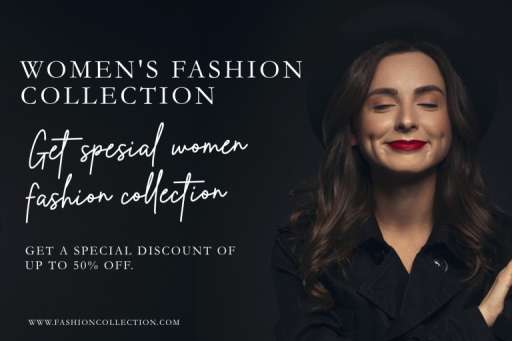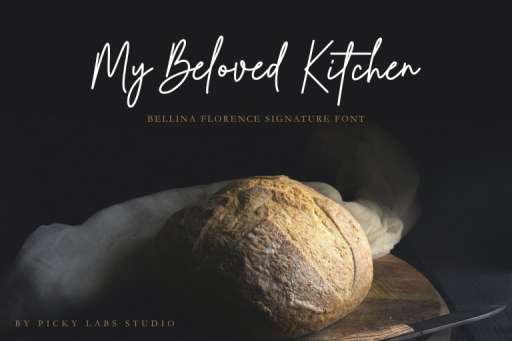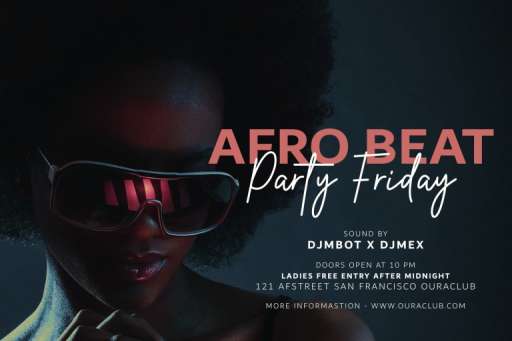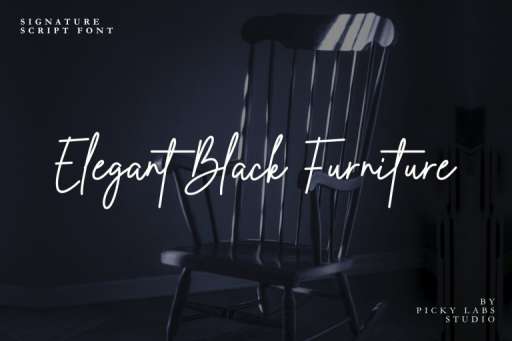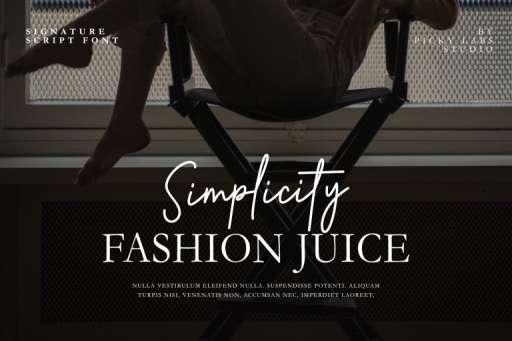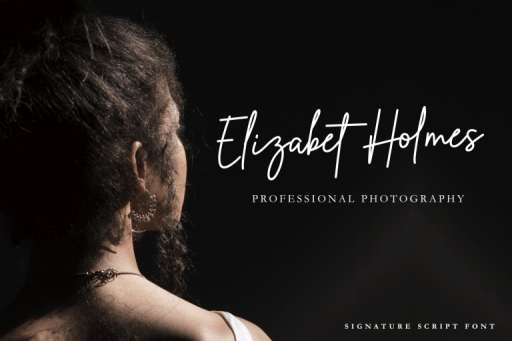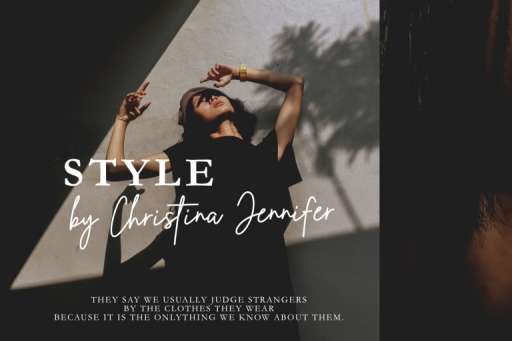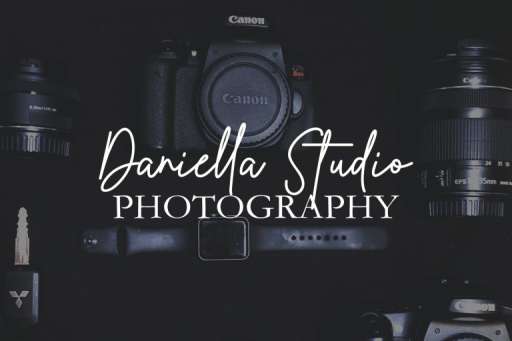
Bellina Florence Font
Bellina Florence – Signature Business Font
Bellina Florence is a smooth signature monoline font that has a strong character in each letter and will be very suitable for branding projects, logotypes, wedding designs, social media posts, advertisements, product packaging, product designs, label, photography, watermark, invitation, stationery and any projects that need handwriting taste.
Bellina Florence Font